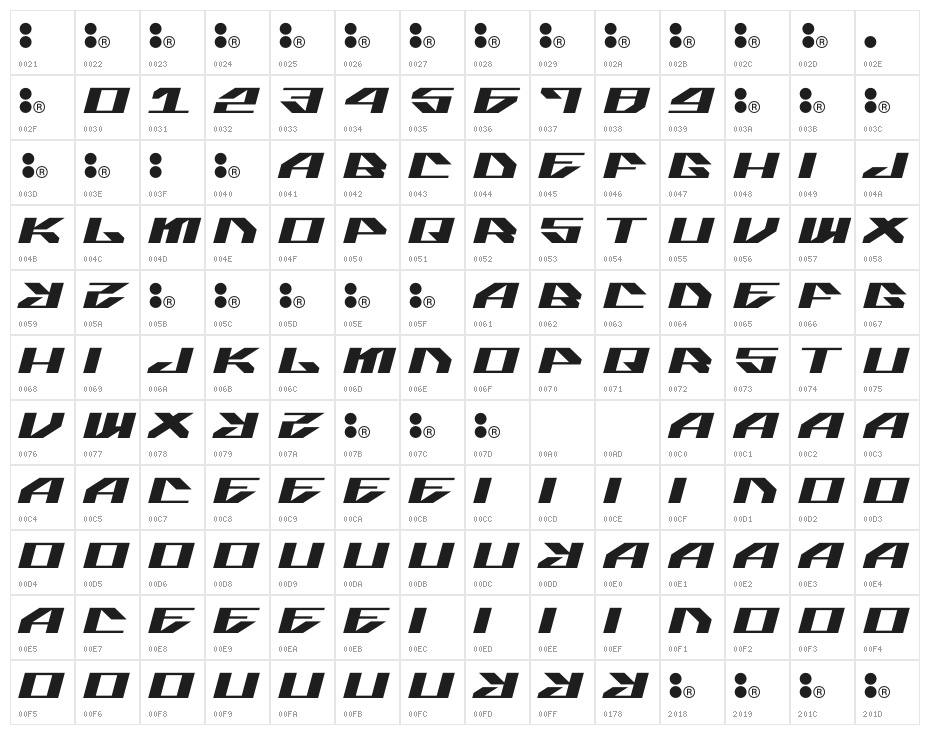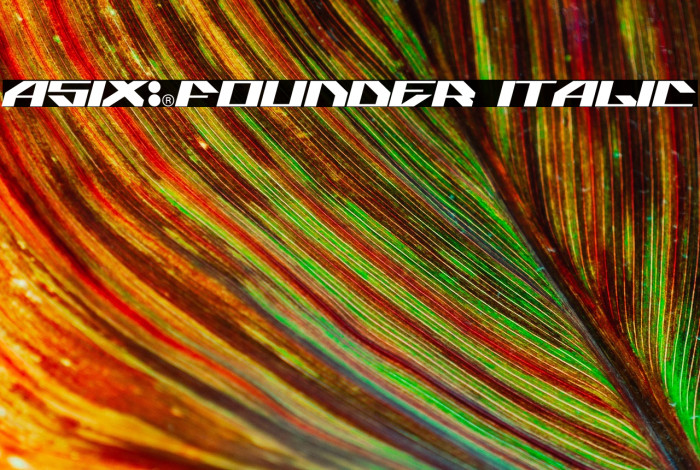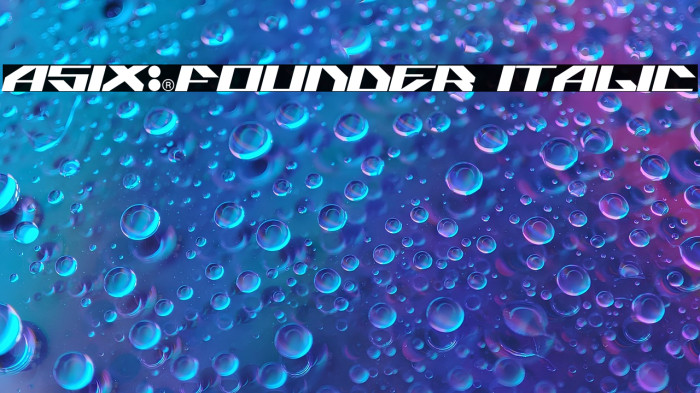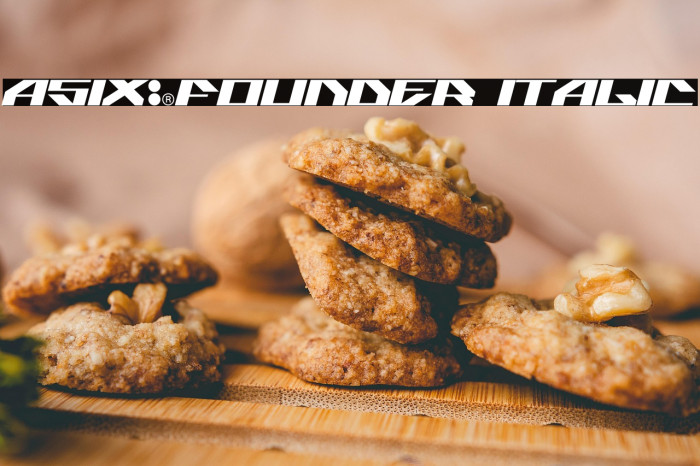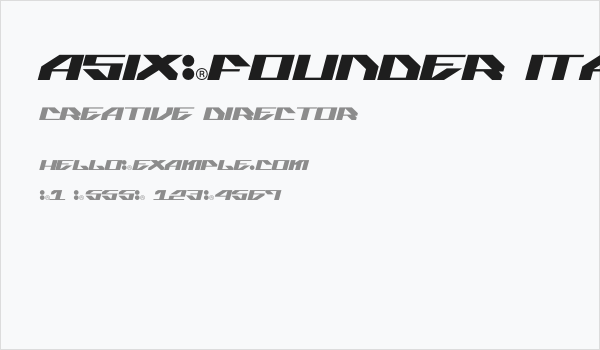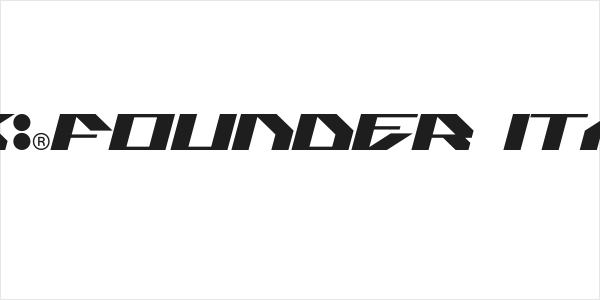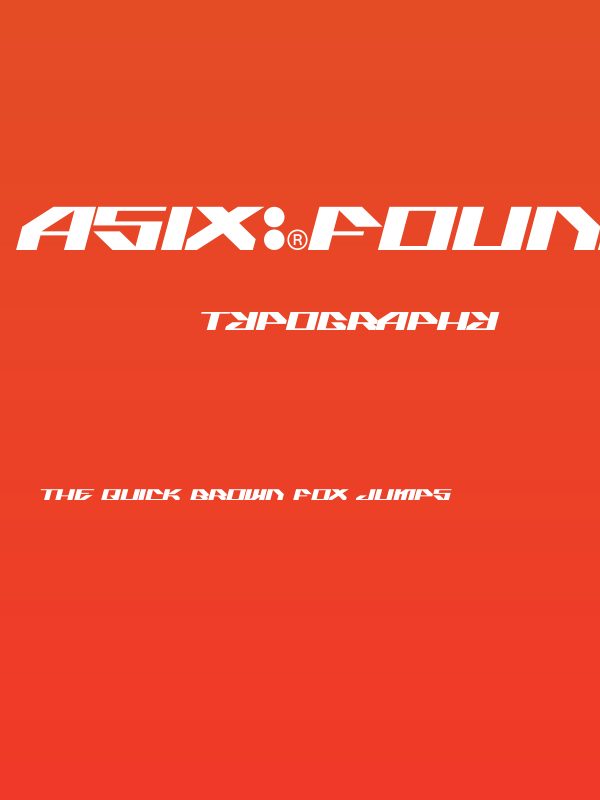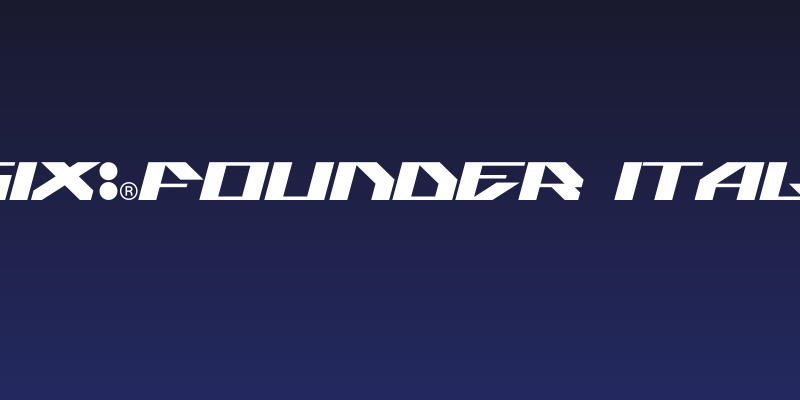
ASIX-FOUNDER Italic Font
ASIX-FOUNDER Italic Description
This font features a bold and angular design with a futuristic and dynamic appearance. The characters are crafted with sharp edges and geometric shapes, giving them a strong and assertive presence. The italic style adds a sense of motion and speed, enhancing its modern and edgy look. The uppercase and lowercase letters maintain a consistent style, while the numerals and special characters complement the overall aesthetic. The font's unique style makes it suitable for projects that require a bold and impactful visual statement.
| Overall Style | Futuristic, Dynamic |
| Proposed Projects | Ideal for branding, sports team logos, video game titles, and sci-fi themed designs. |